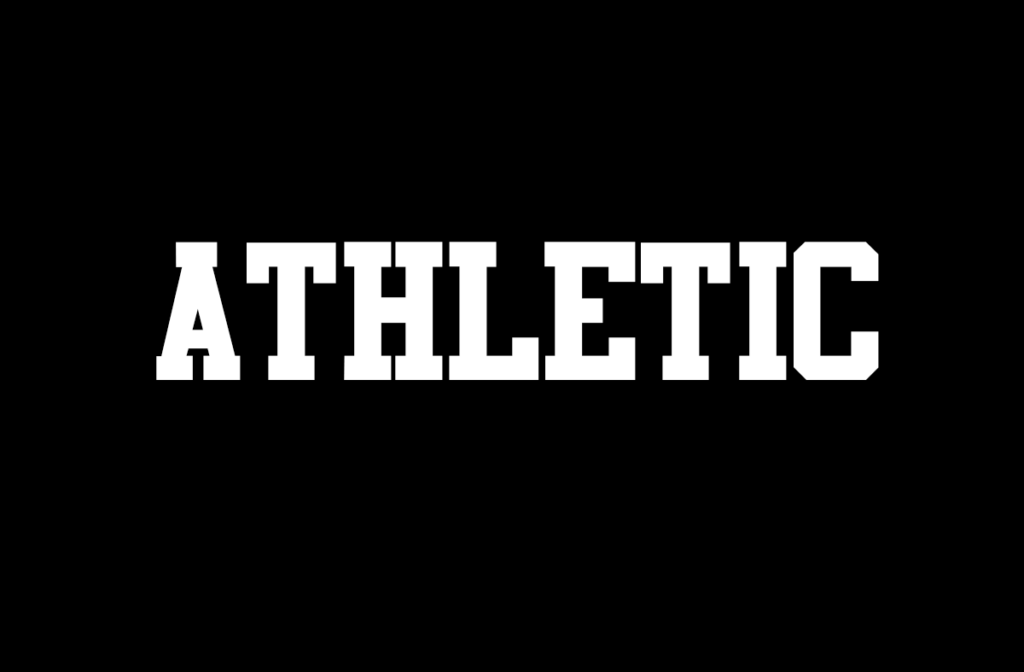
Athletic Font
Athletic is a unique and incredibly interesting slab serif font. Masterfully designed to become a true favorite, this font has the potential to bring each of your creative ideas to the highest level.